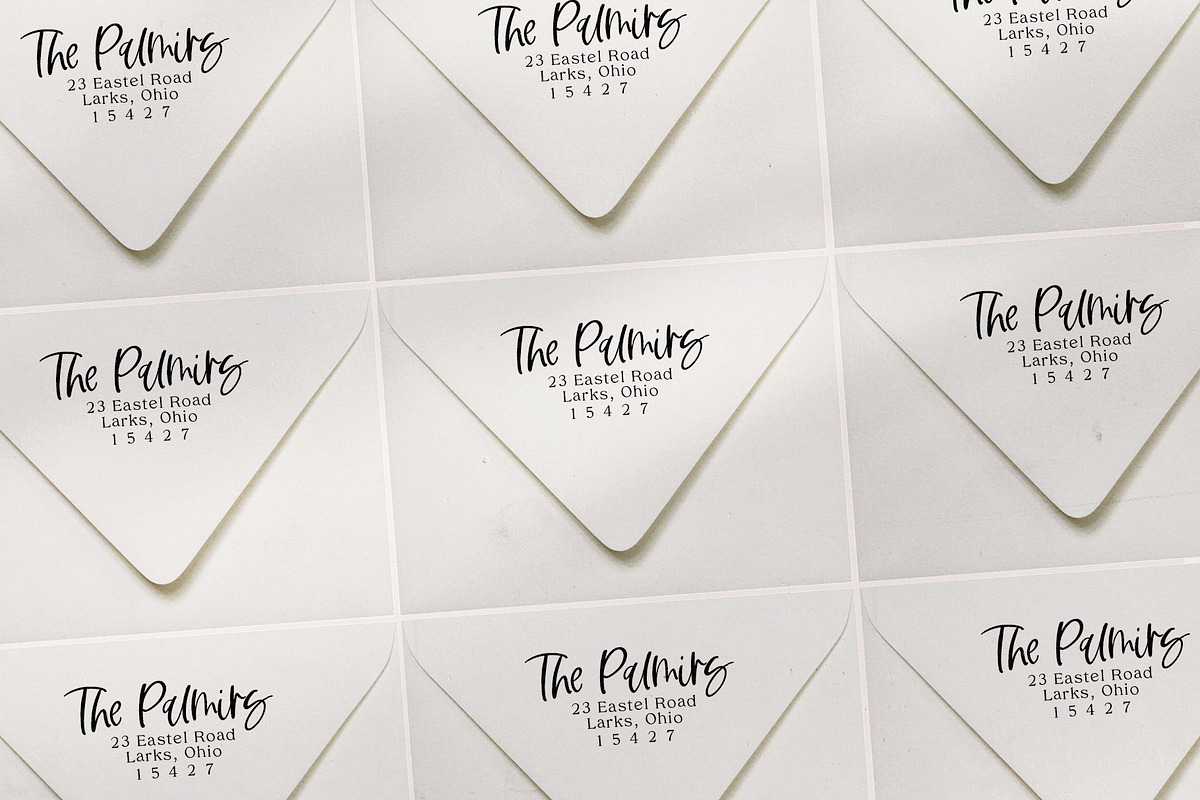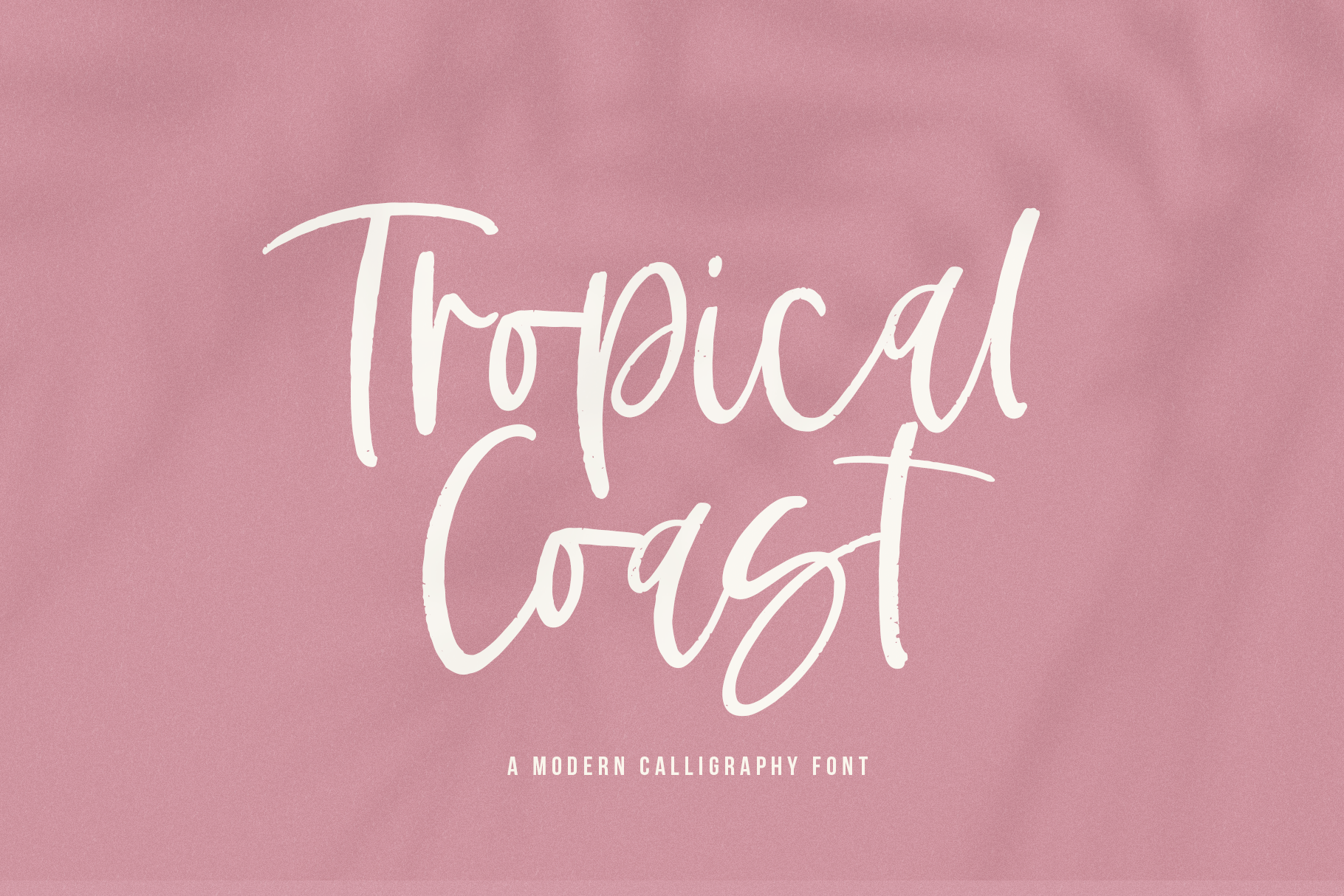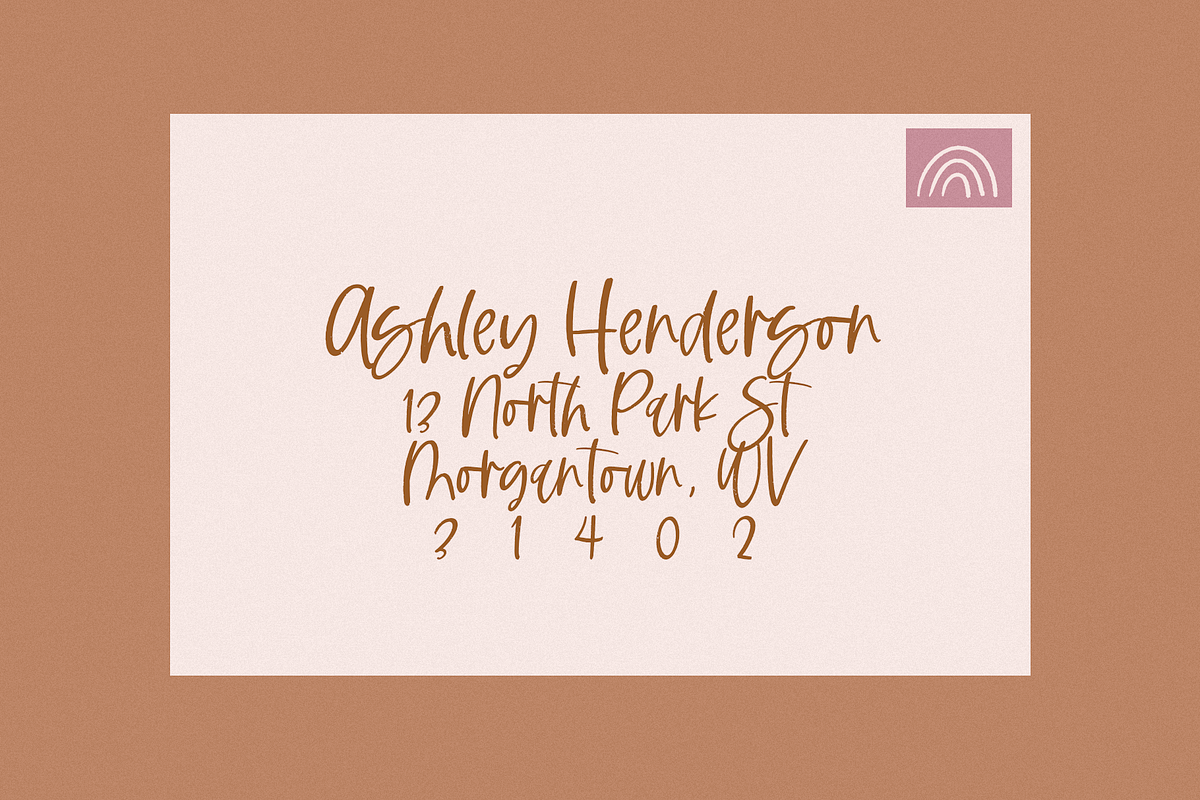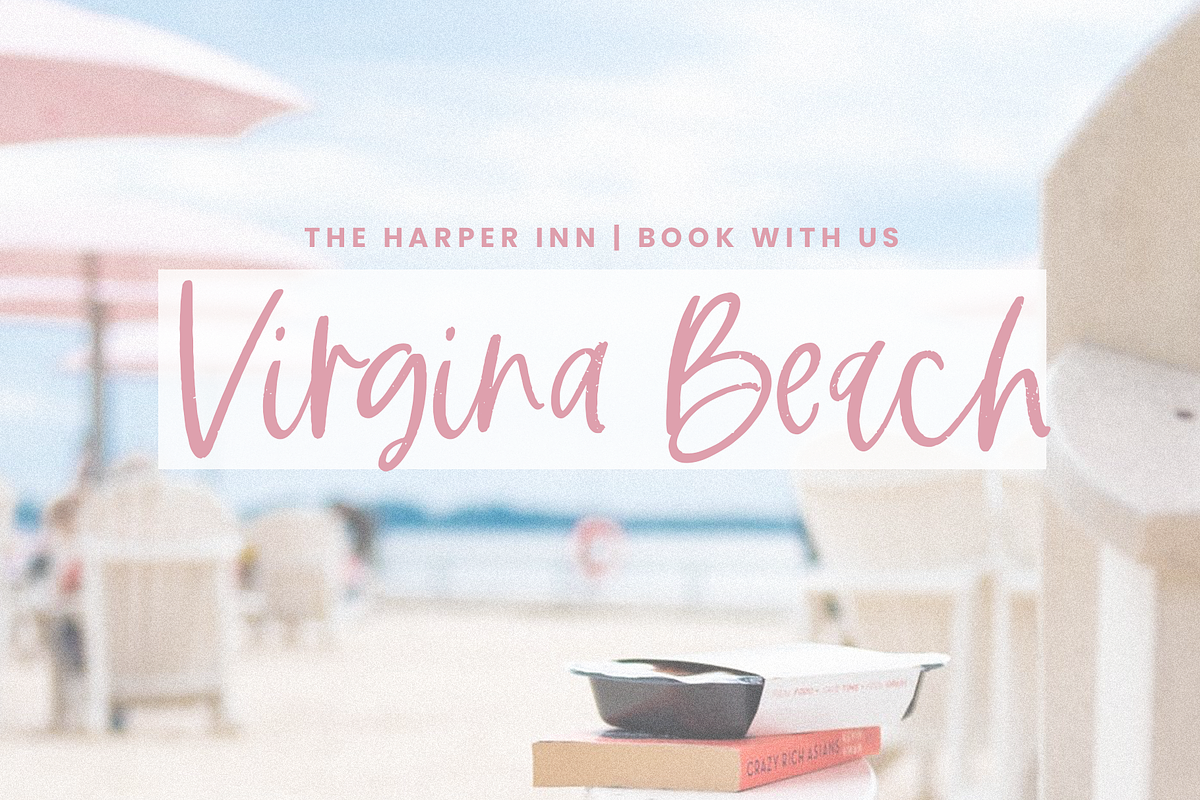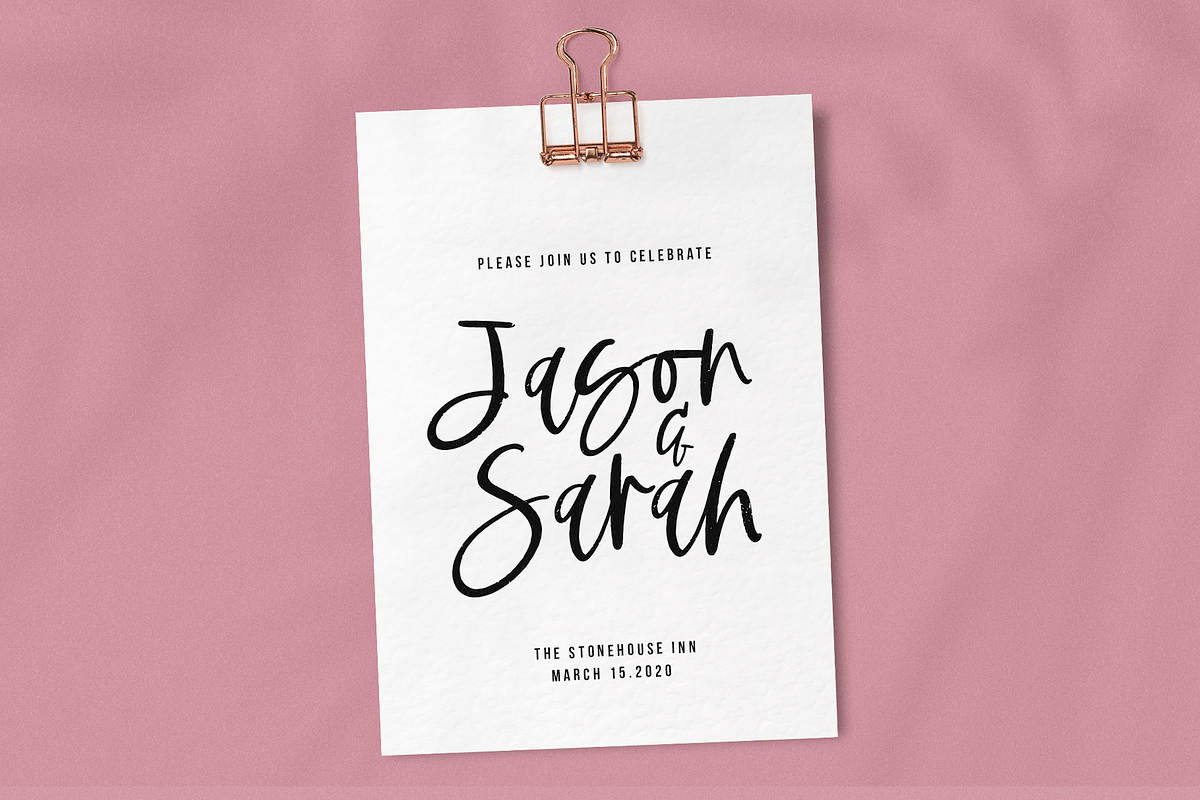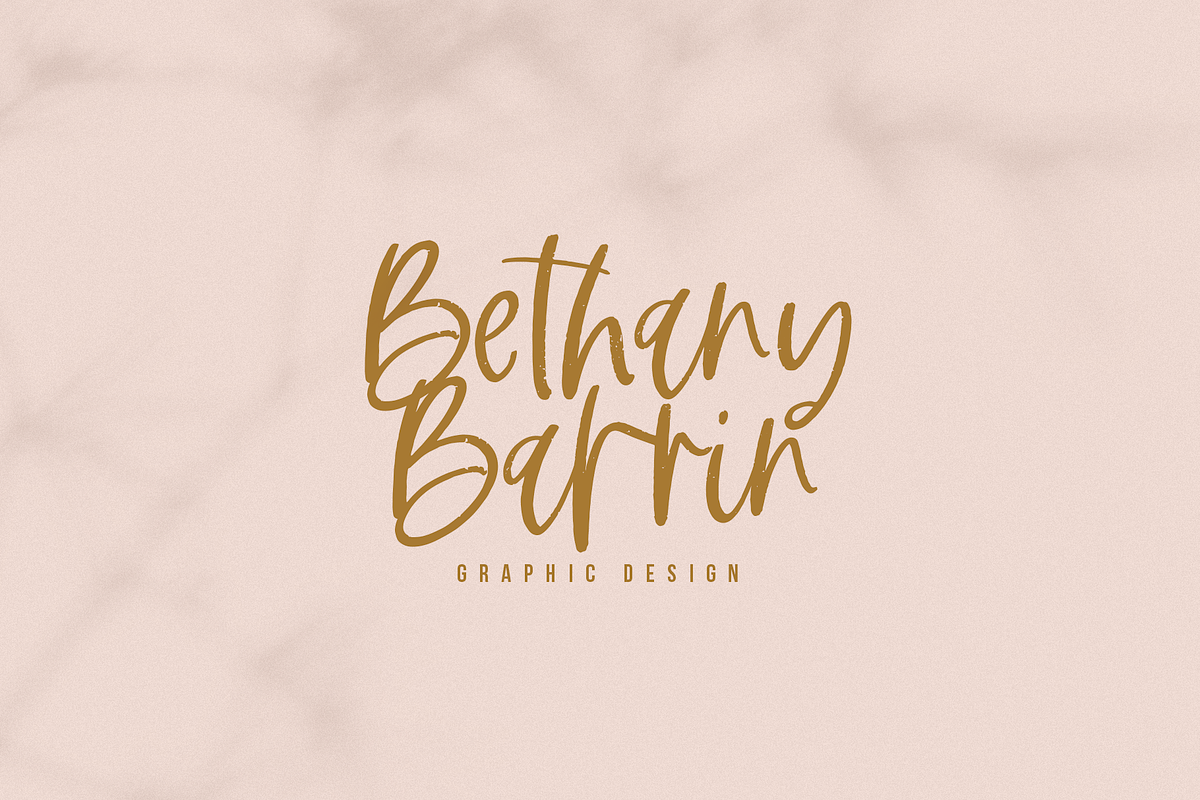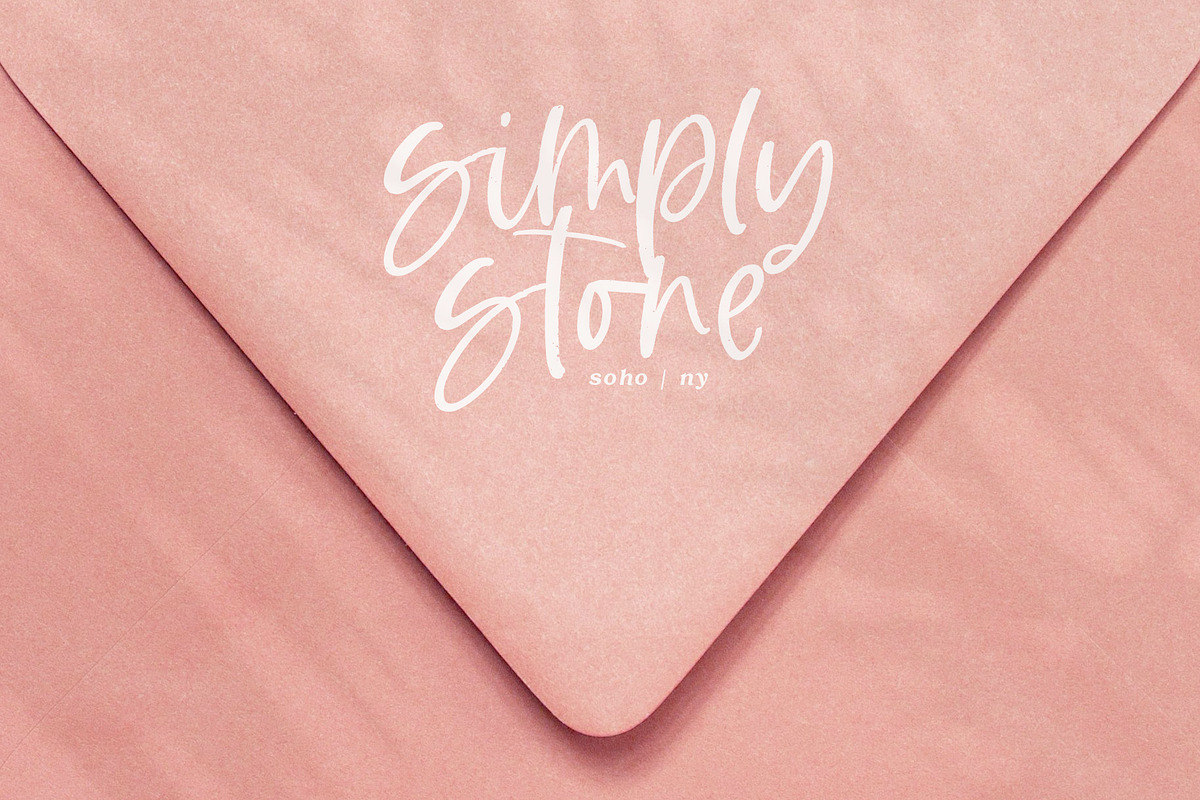
Tropical Coast | Handwritten Font
Tropical Coast is a modern handwritten font with a brush texture. The authentic texture makes it a perfect choice for branding and digital designs. Use this font for logos, social media, websites, blogs, instagram, social media, business cards, branding, and more!